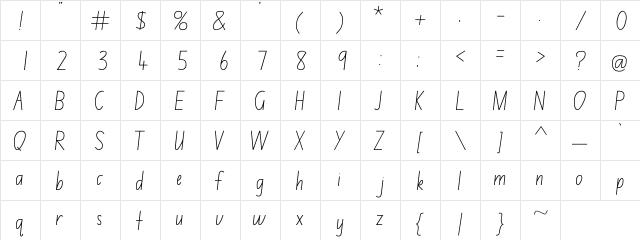
NSW ACT Regular
| Designer | DaShiz |
Design Context for NSW ACT Typeface
NSW ACT is a composed and adaptable typeface that performs quietly and consistently across a wide range of design contexts.